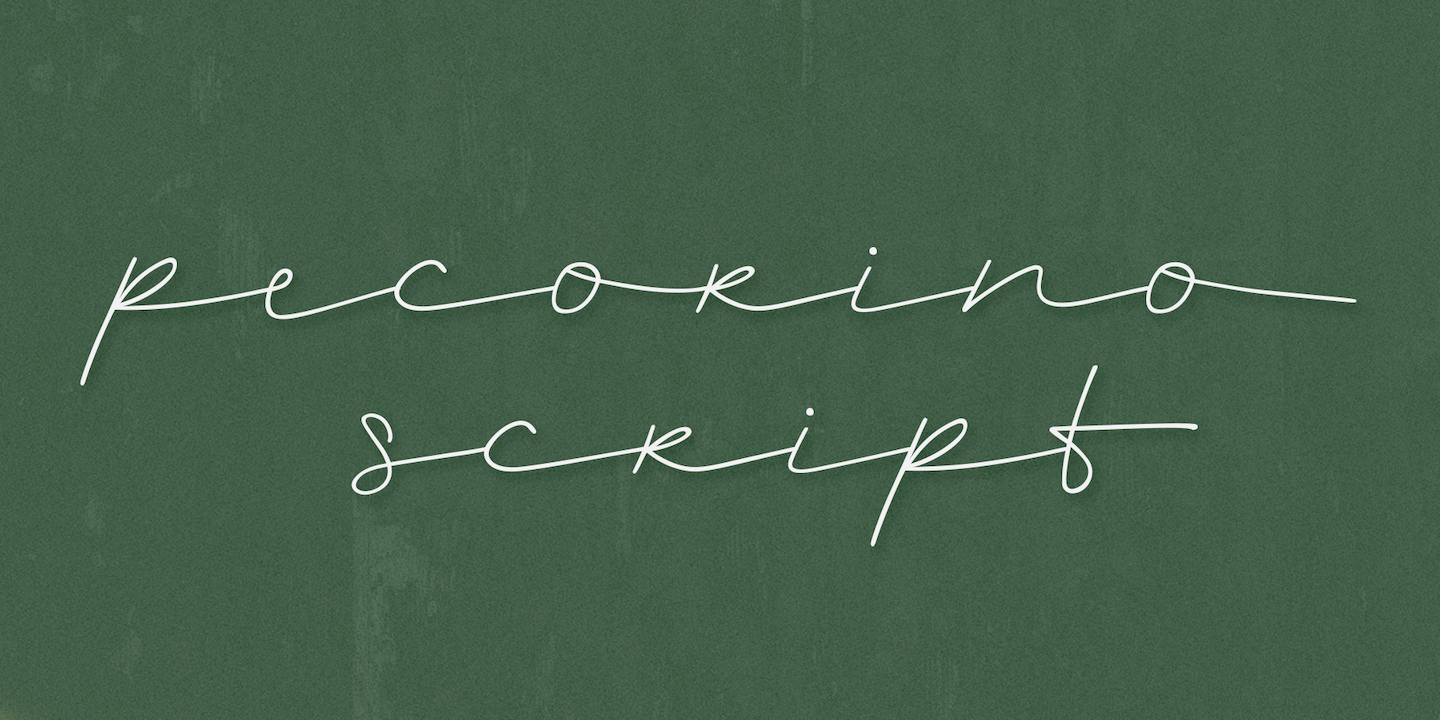
Pecorino Script Font excels in artisan cheese packaging, Italian delicatessen branding, gourmet food labeling, rustic farmhouse signage, traditional dairy marketing, authentic trattoria menus, artisanal cheese board designs, Mediterranean cuisine promotions, vintage Italian restaurant communications, and farm-to-table product branding. Its artisanal character makes it perfect for projects requiring authentic Italian charm and handcrafted food appeal that celebrates traditional cheesemaking and culinary heritage.
What makes Pecorino Script Font exciting is its authentic embodiment of Italian artisanal tradition through flowing script letterforms that capture the passionate craftsmanship and time-honored techniques of traditional cheesemaking. The font features elegant curves with rustic sophistication that evoke the careful aging process and artisanal quality of authentic Italian cheeses while maintaining excellent readability for gourmet communications. Its artisanal character transforms ordinary text into expressions of culinary heritage that celebrate the art of traditional food craftsmanship.
The Pecorino Script Font family includes Regular, Bold, Light, Rustic, Artisan, Traditional, and Gourmet variations. Each style preserves the font's Italian essence while offering different levels of artisanal sophistication and culinary weight for creating authentic Mediterranean graphics. The comprehensive character set includes Italian symbols, culinary ornaments, artisanal decorations, and gourmet glyphs essential for genuine food craftsmanship and Italian cuisine typography projects.
Italian restaurants and artisanal food brands consistently choose Pecorino Script Font Free Download for projects demanding authentic Italian typography solutions. The font's artisanal character instantly establishes culinary credibility while ensuring clear communication across gourmet marketing channels. Its versatility spans from subtle Italian touches to bold statements that celebrate the rich tradition of Italian cheesemaking and the passionate dedication required for authentic artisanal food production.
Whether you're developing Italian food brand identities, creating gourmet marketing materials, or designing artisanal communications, Pecorino Script Font provides the perfect combination of Italian authenticity and contemporary functionality. The font's artisanally crafted letterforms ensure genuine Italian character while maintaining excellent performance across various culinary applications and gourmet business communications.
The culinary heritage of Pecorino Script Font makes it exceptional for creating appetizing connections with food lovers who appreciate Italian traditions and artisanal quality. Its Italian precision and gourmet appeal work seamlessly across traditional delicatessen materials and modern digital food platforms. The font performs deliciously in both large-scale culinary displays and intimate gourmet communications.
Savor Italian authenticity with Pecorino Script Font and discover how genuine artisanal typography can enhance your culinary projects with authentic Italian appeal and gourmet sophistication. This remarkable typeface combines Italian cheesemaking tradition with contemporary functionality, making it indispensable for food professionals celebrating the timeless art of Italian cuisine and the passionate craftsmanship of authentic artisanal food production.